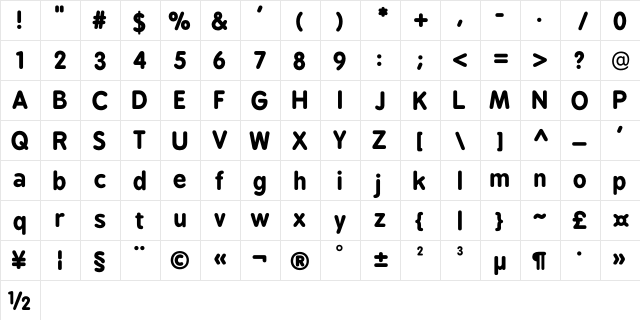
BPreplay Bold
| Foundry | Magenta/George Triantafyllakos |
| Designer | Magenta/George Triantafyllakos |
Design Context for BPreplay Typeface
BPreplay offers clean, dependable letterforms without strong stylistic allegiance, making it a practical choice for designers who need flexibility. Its bold stroke weight gives it real presence on the page.
Pro Tip: Pair BPreplay with a font of contrasting weight or personality to build a more expressive typographic hierarchy.